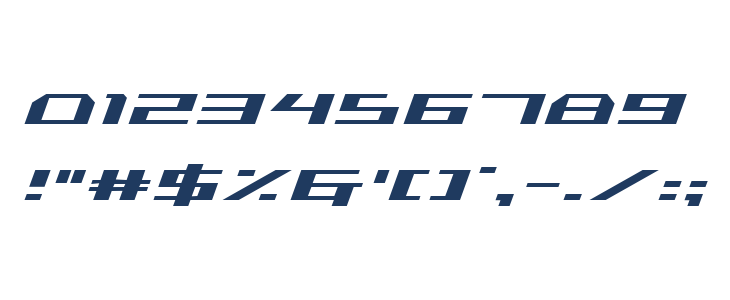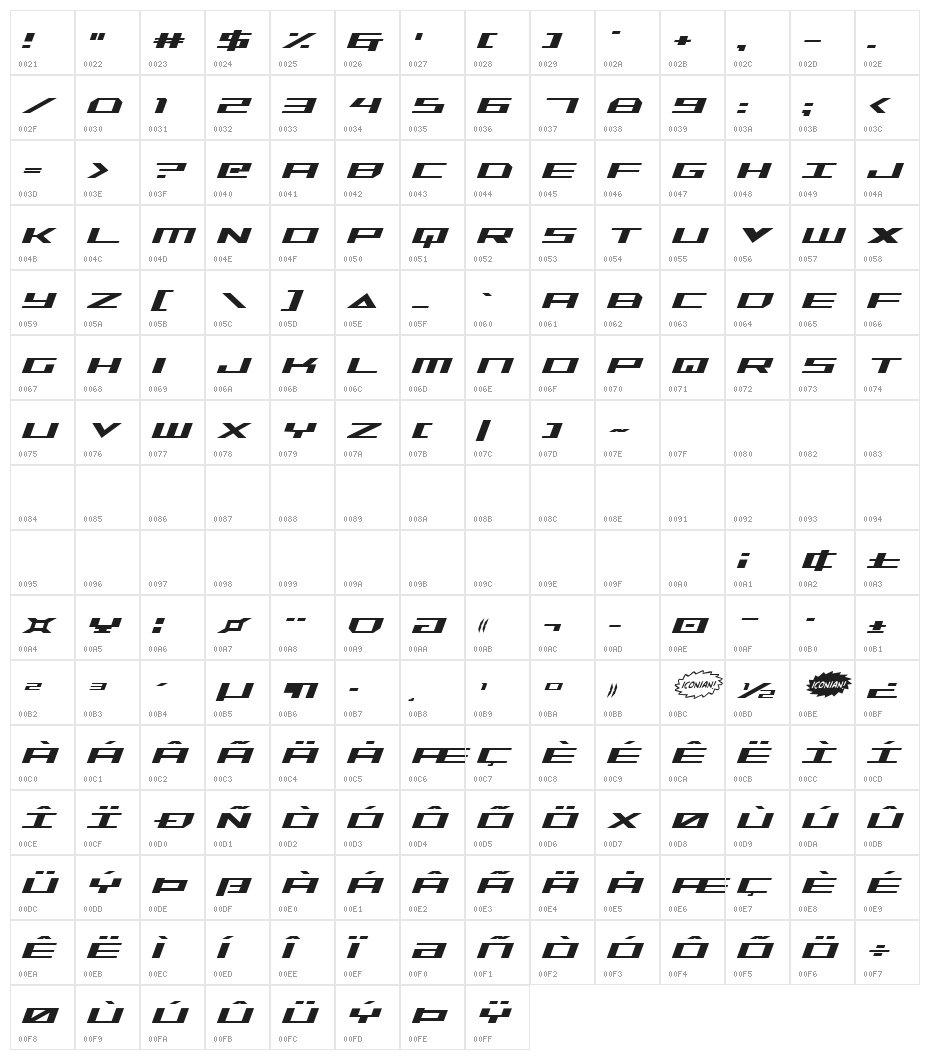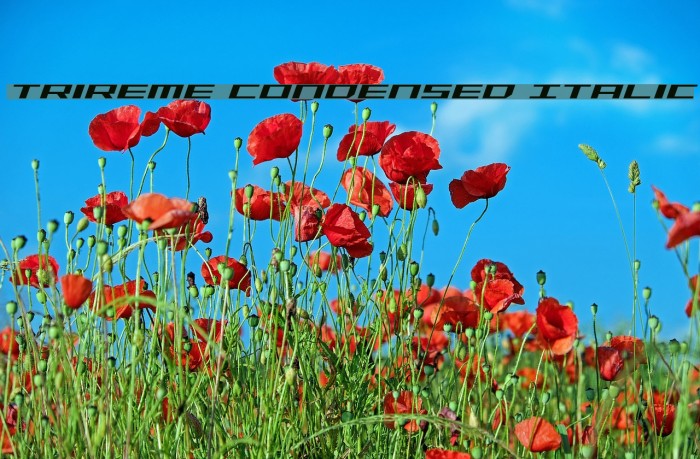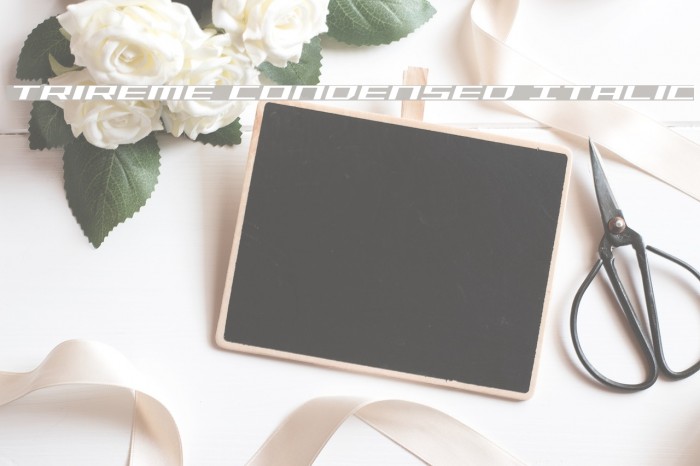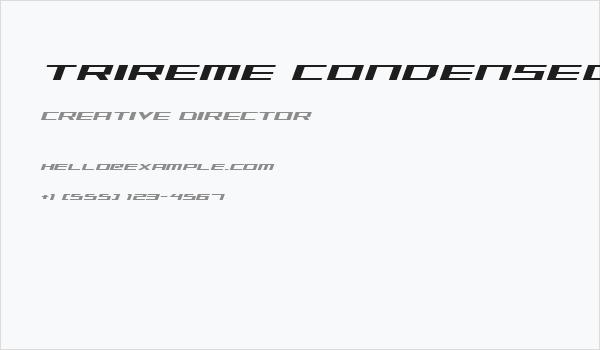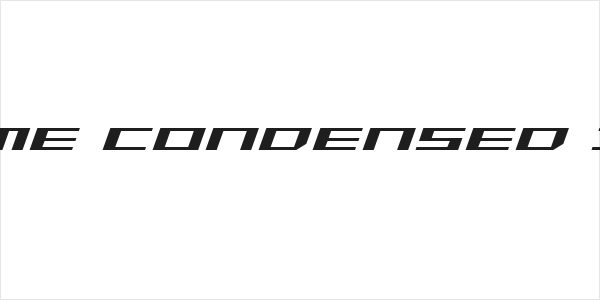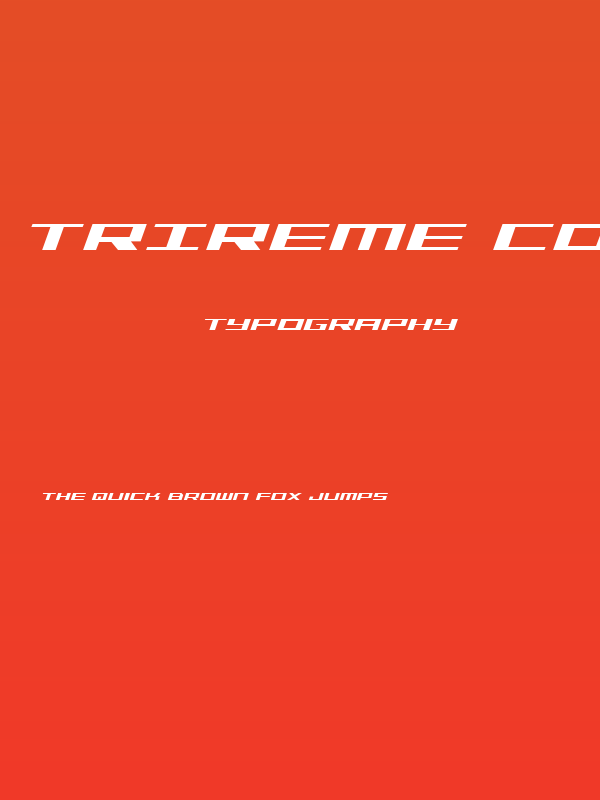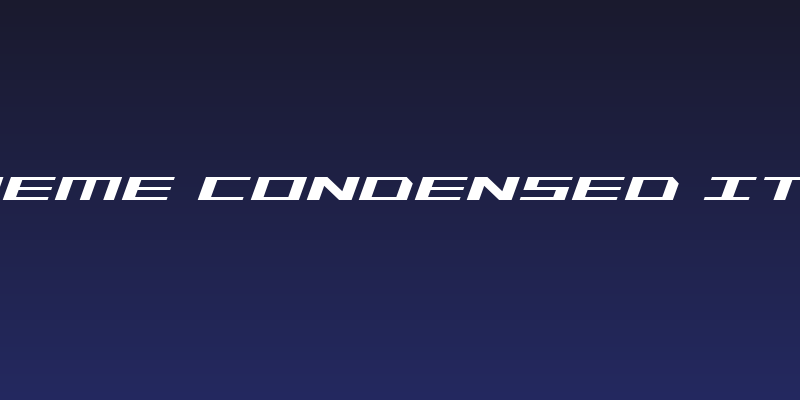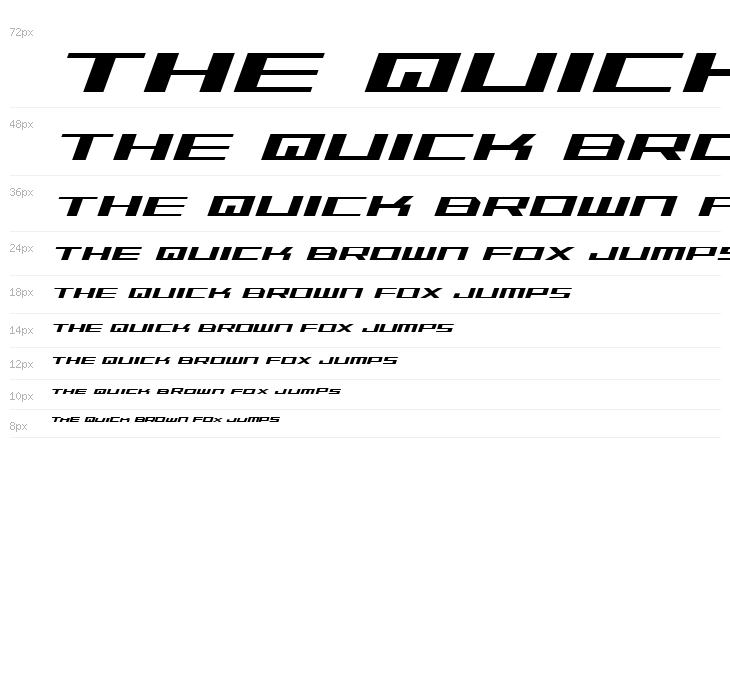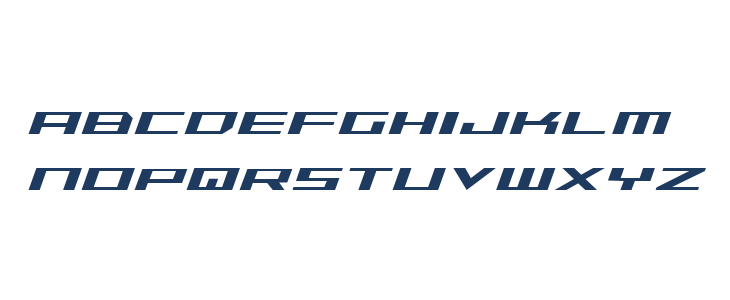
Trireme Condensed Italic Font
Trireme Condensed Italic Description
This font features a futuristic and angular design, characterized by its sharp edges and slanted orientation. The condensed form gives it a sleek and compact appearance, making it ideal for modern and dynamic visual projects. The italic style adds a sense of motion and speed, enhancing its suitability for technology or sports-related themes. The characters are uniformly spaced, maintaining a consistent and cohesive look across all letters and numbers. The high contrast between the thick and thin strokes further accentuates its bold and assertive presence, making it stand out in any design context.
| Use Case | Logos, Headlines |
| Proposed Projects | Ideal for technology branding, sports team logos, futuristic posters, and dynamic web design. |